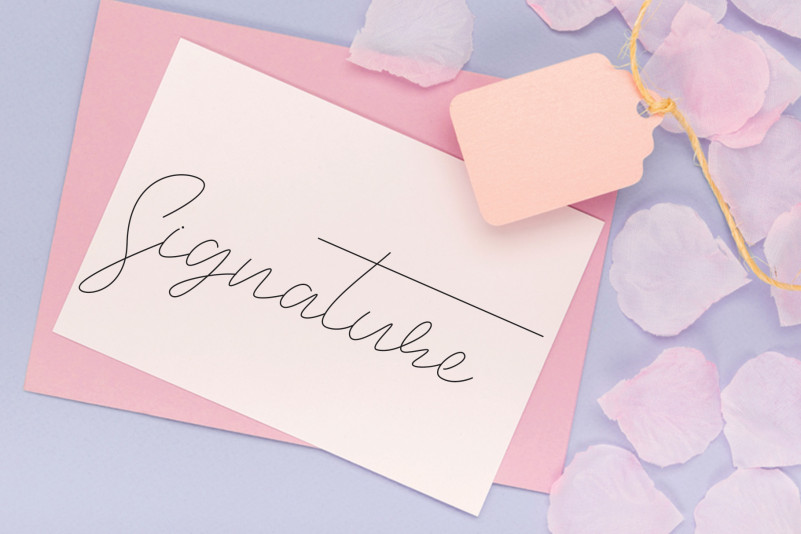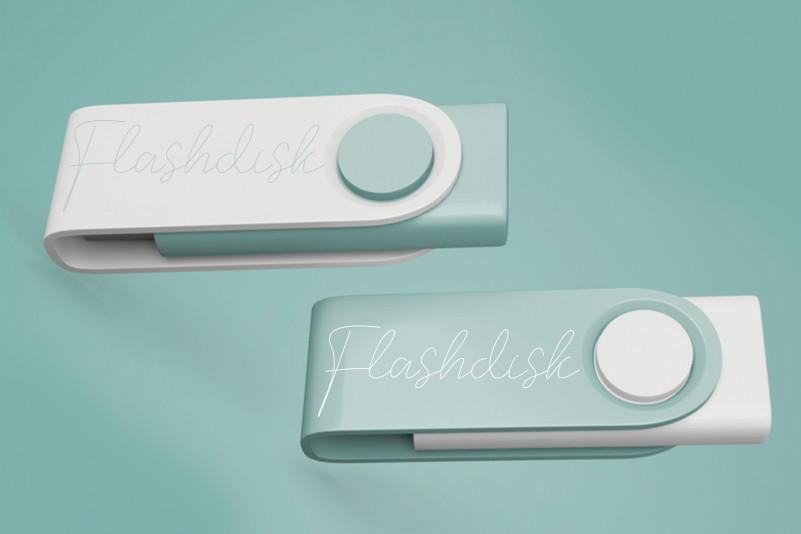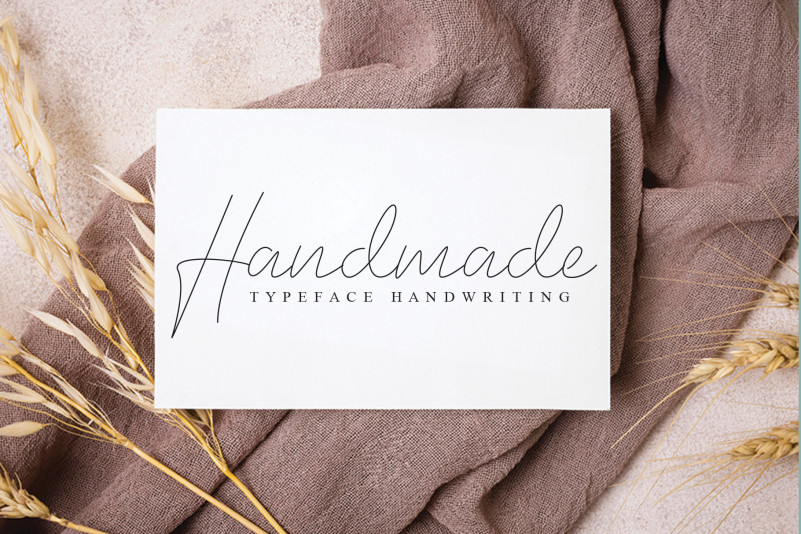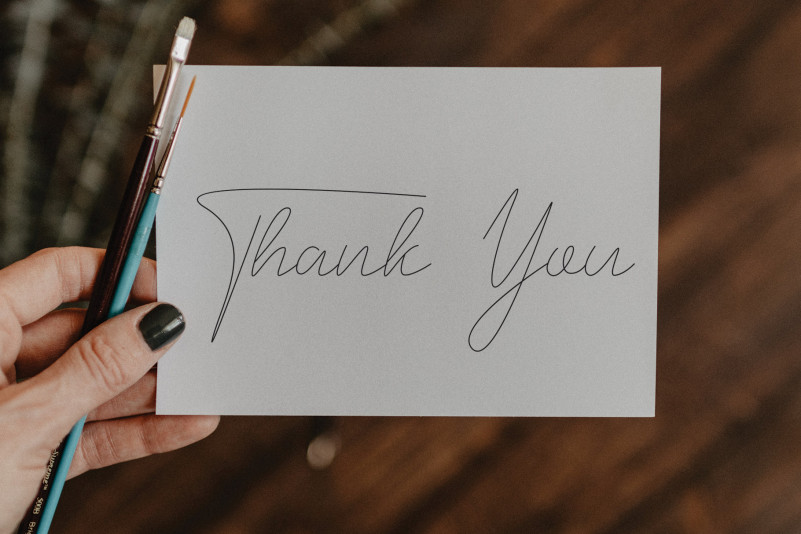
Rope Flower Script Font
Rope Flower Script Font is a delicate and elegant handwritten font. It looks stunning on wedding invitations, thank you cards, quotes, greeting cards, logos, business cards and every other design which needs a handwritten touch.